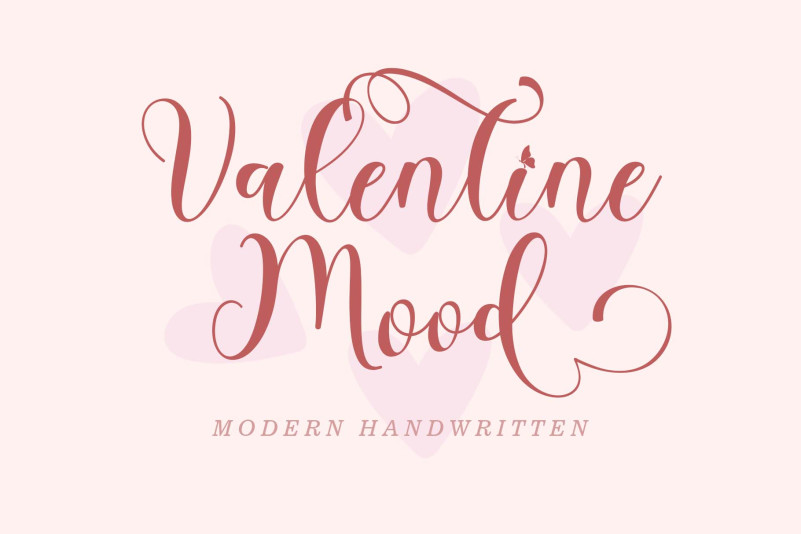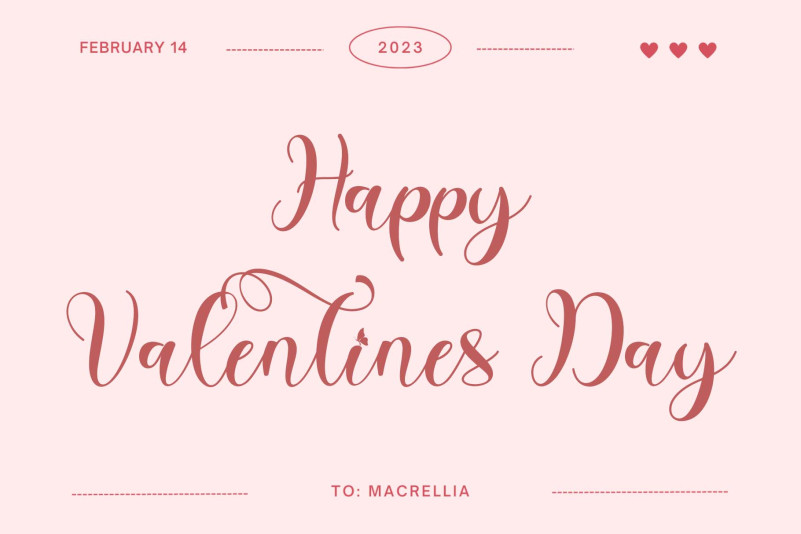
Valentine Mood
Valentine Mood Script Font is a lovely and attractive script font that has beautiful swashes and ligatures that add a touch of elegance to any design. Its graceful curves, delicate lines, and playful swirls create an eye-catching look. It is also PUA encoded which means you can access all of the glyphs and swashes with ease!